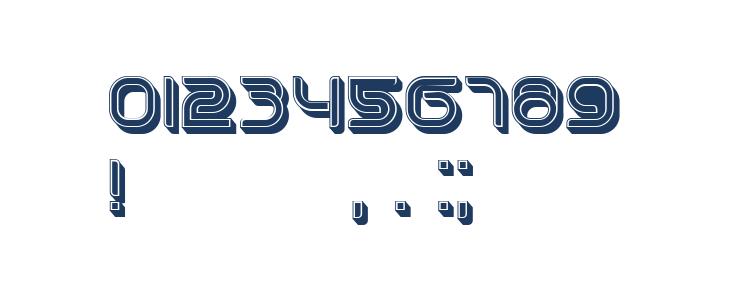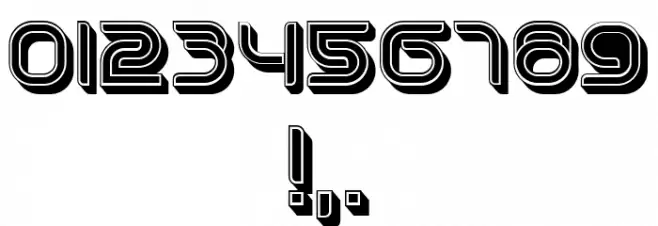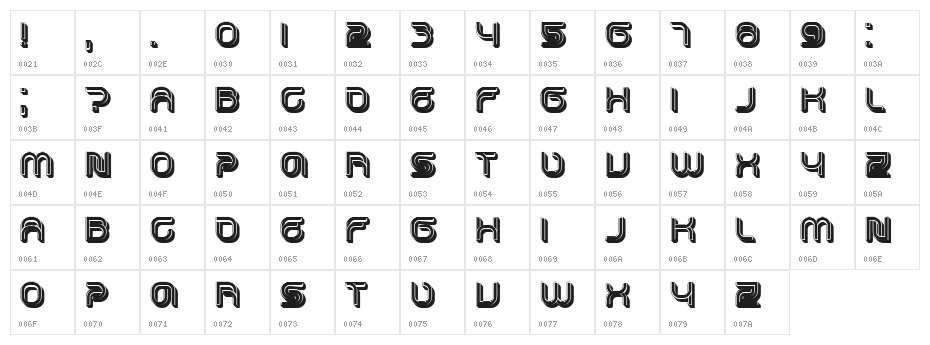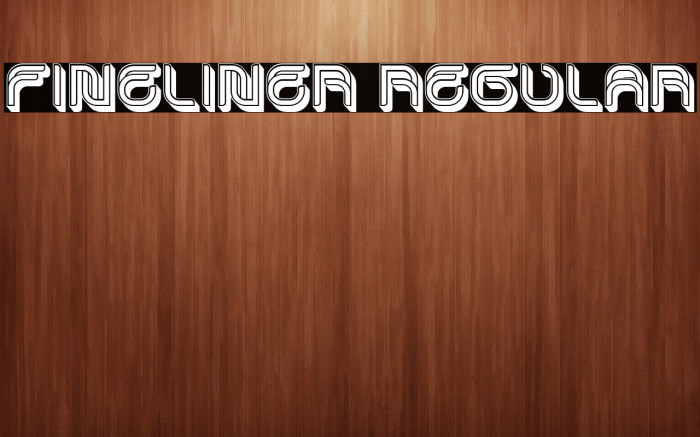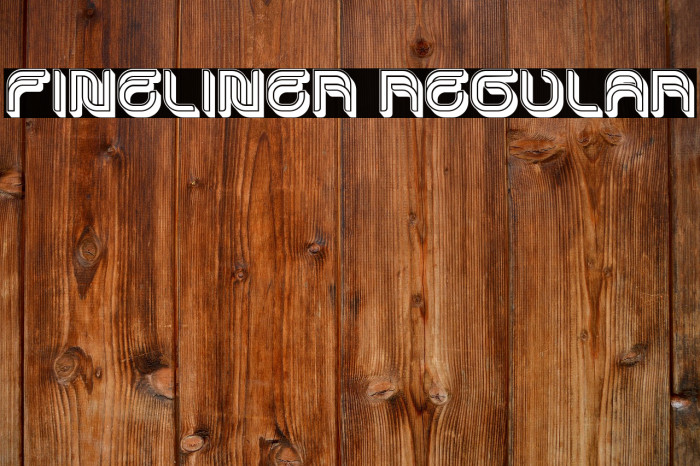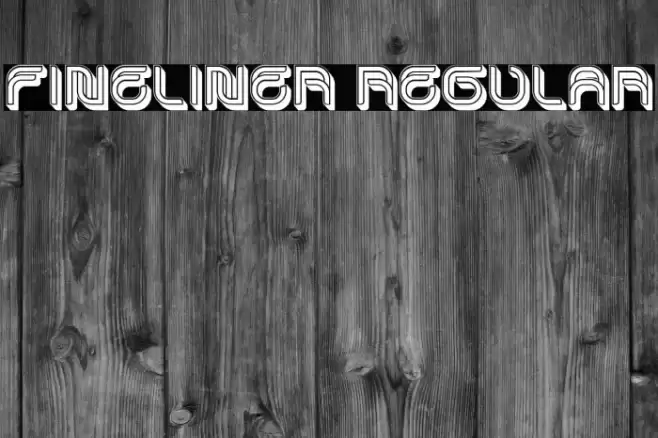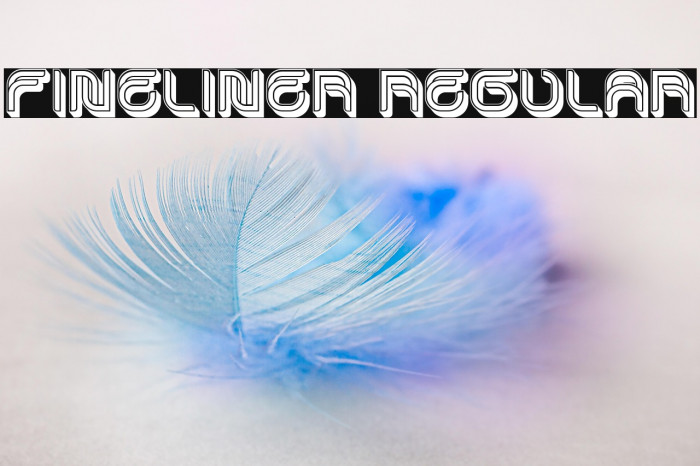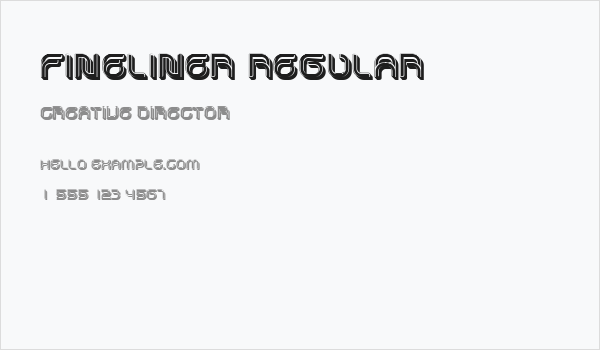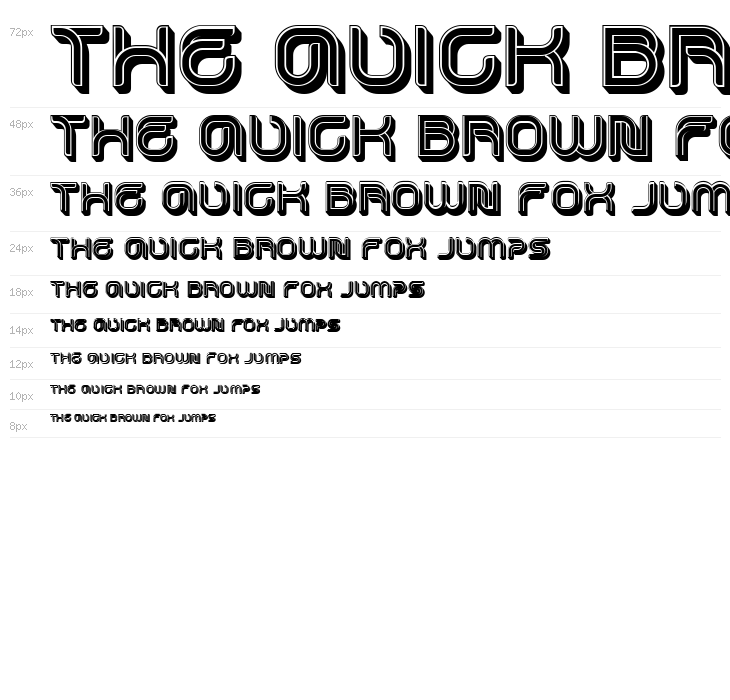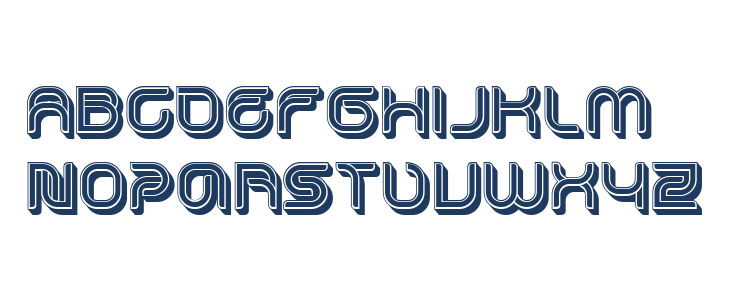
Fineliner Regular Font
Fineliner Regular Description
This font features a bold, geometric design with a futuristic aesthetic. The characters are constructed with thick, parallel lines that create a sense of depth and dimension. The style is consistent across uppercase letters, numbers, and special characters, maintaining a cohesive look. The font's structure is both modern and decorative, making it stand out with its unique, layered appearance. The spacing between characters is tight, enhancing the compact and unified feel of the text. This font is ideal for projects that require a strong visual impact and a contemporary edge.